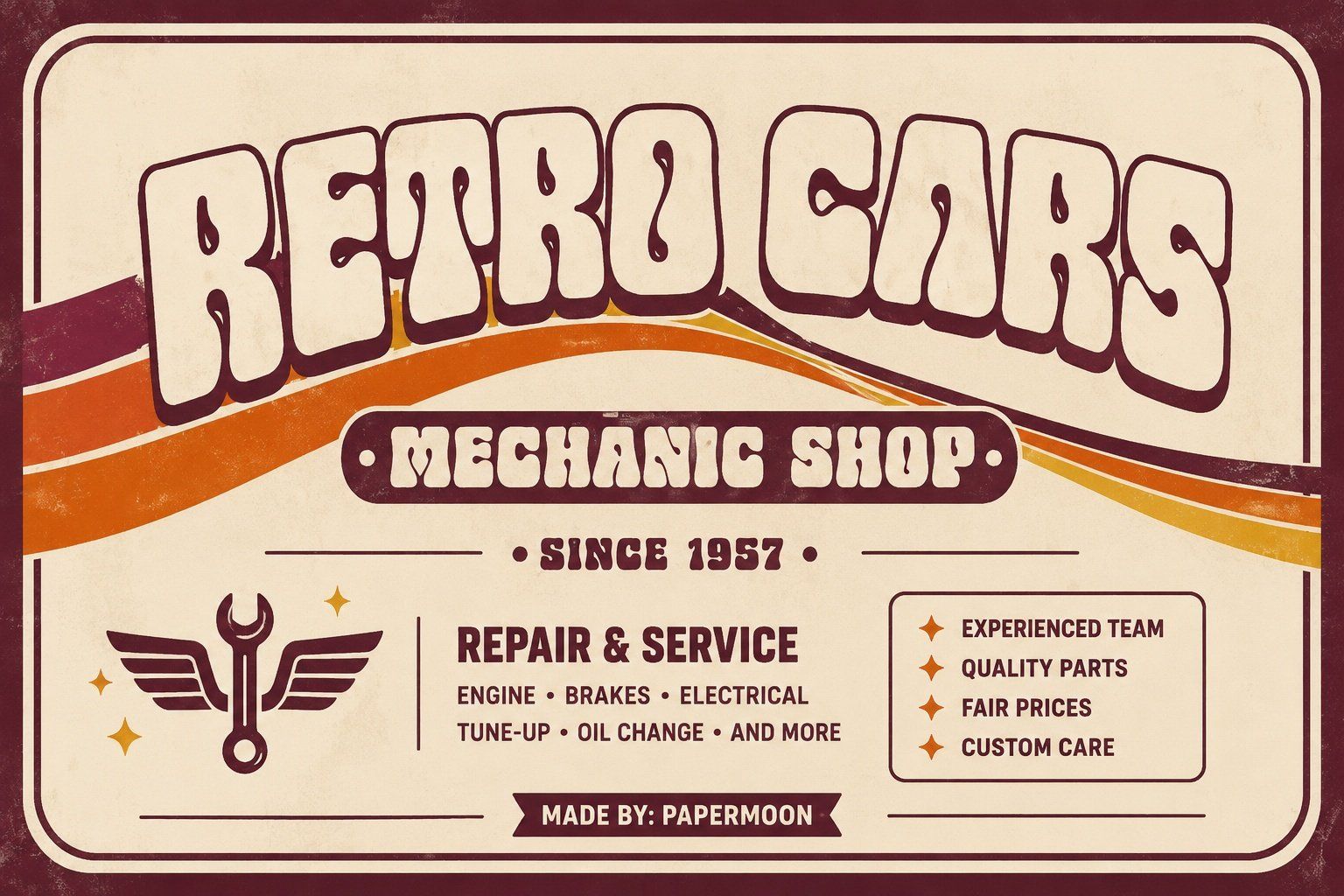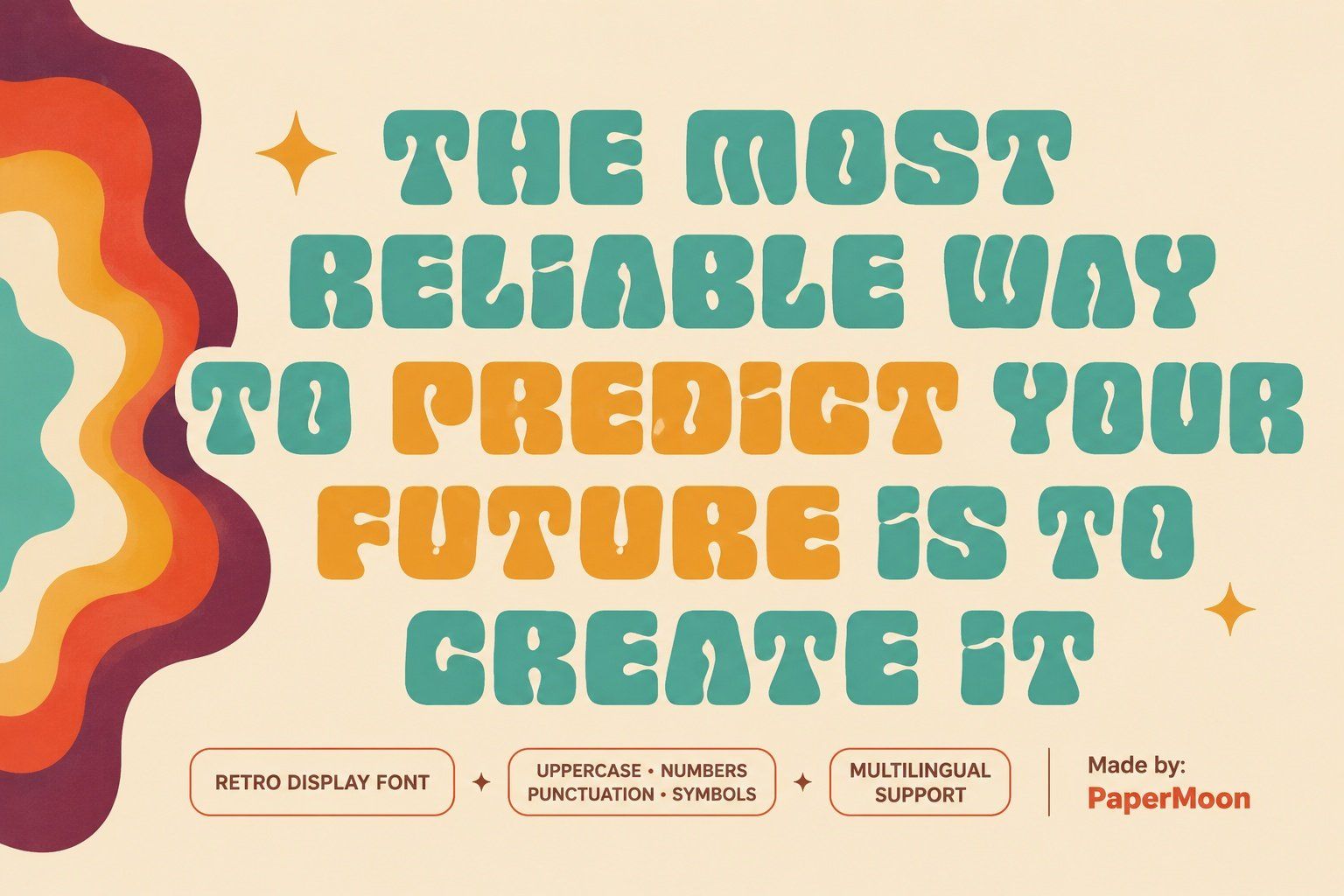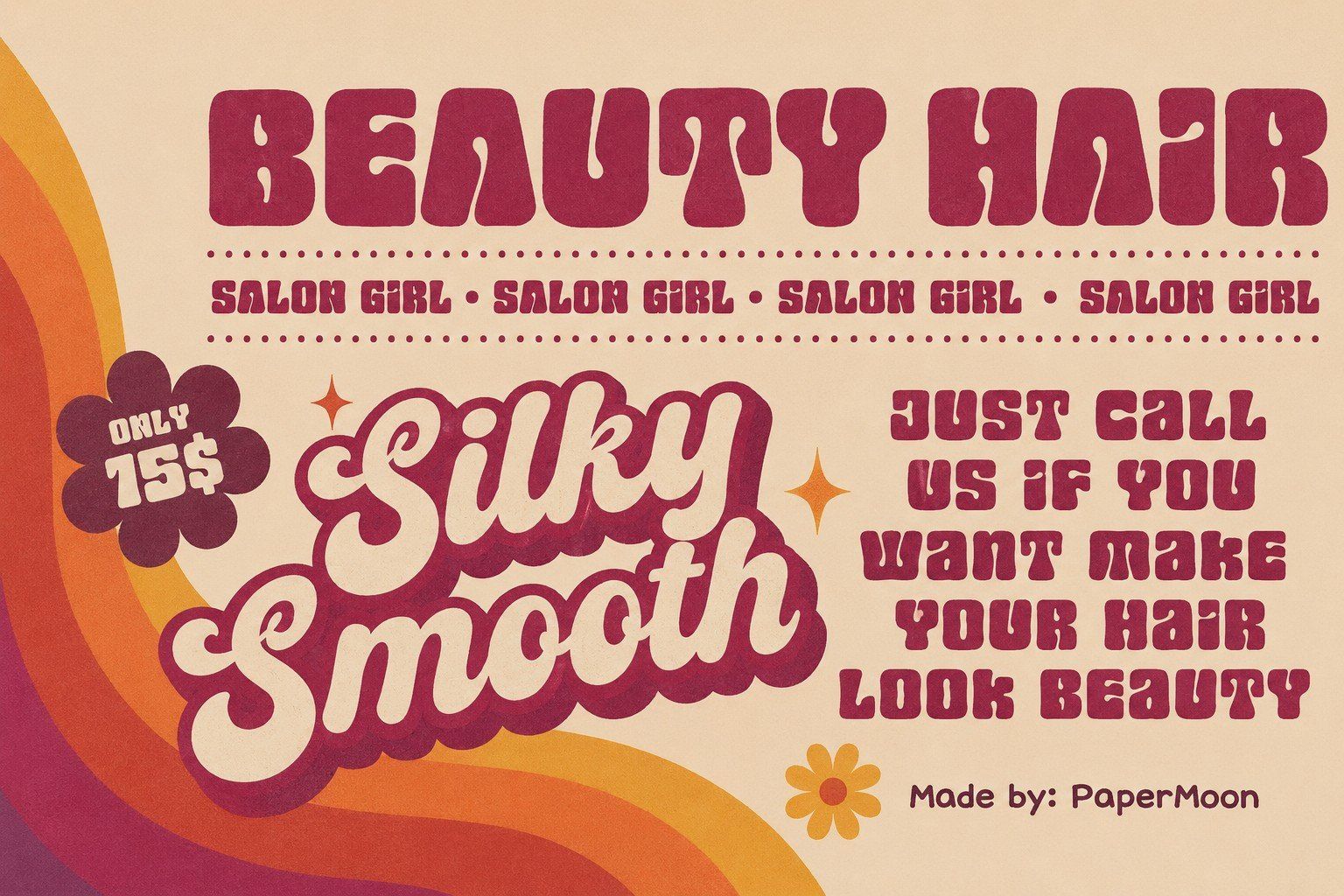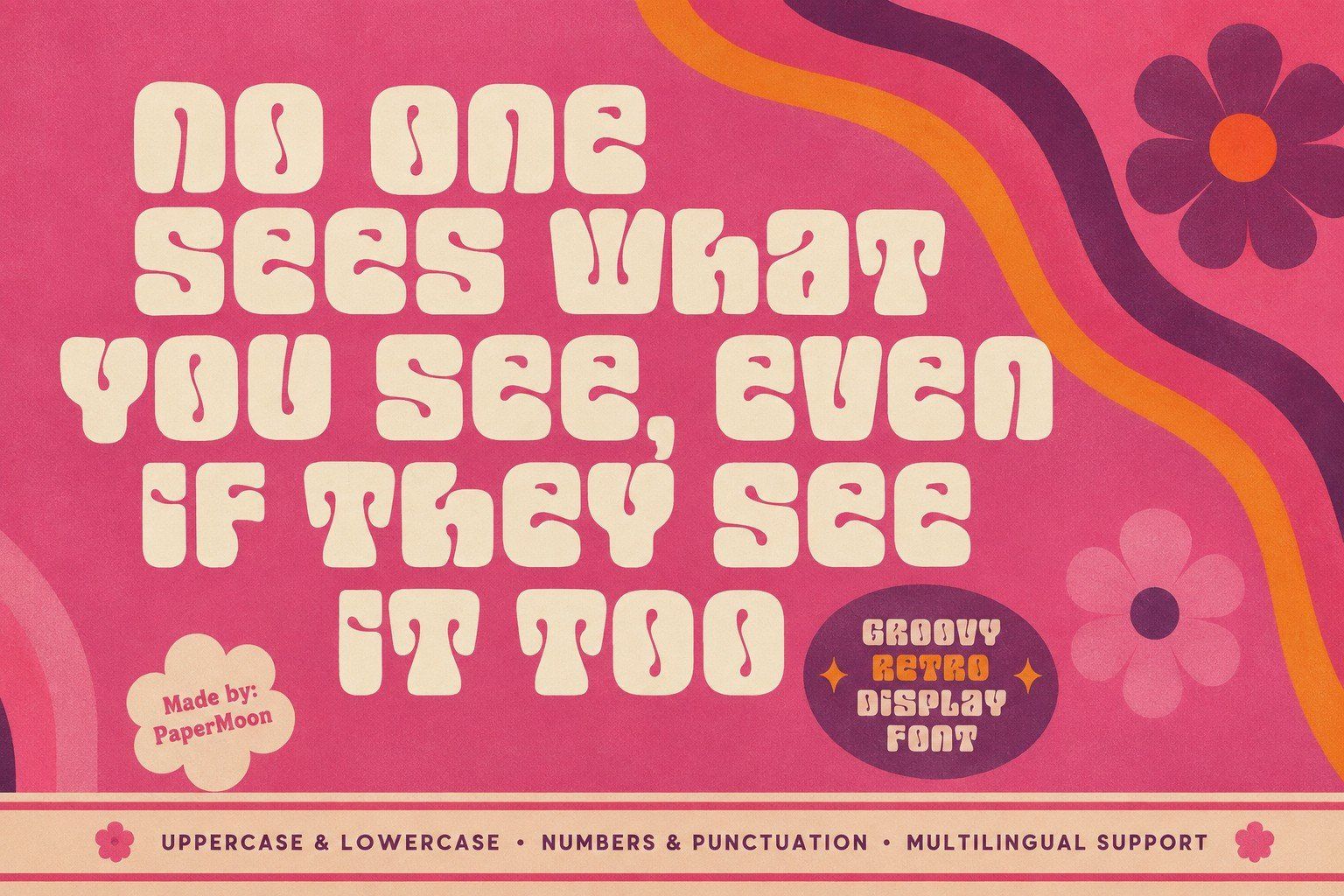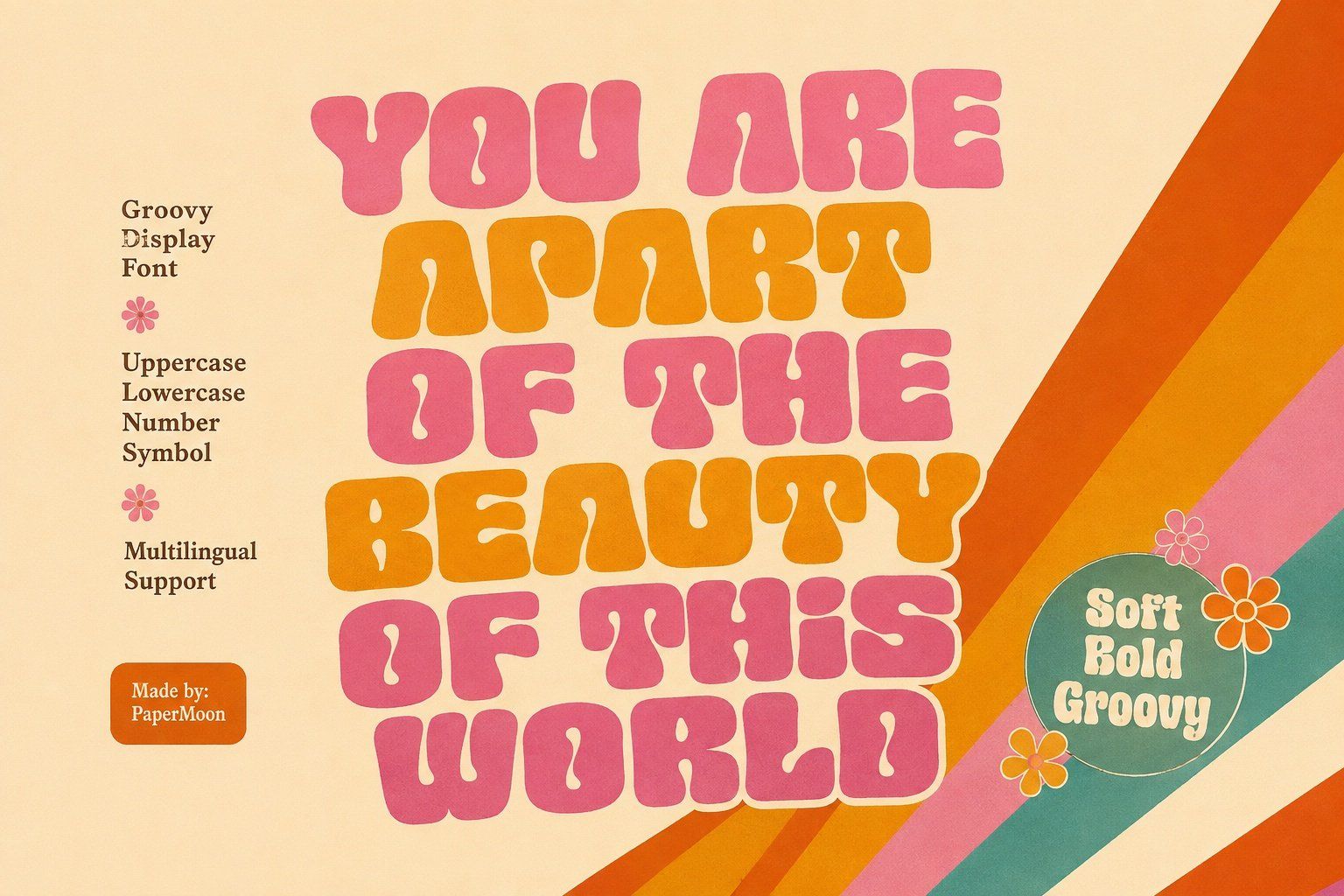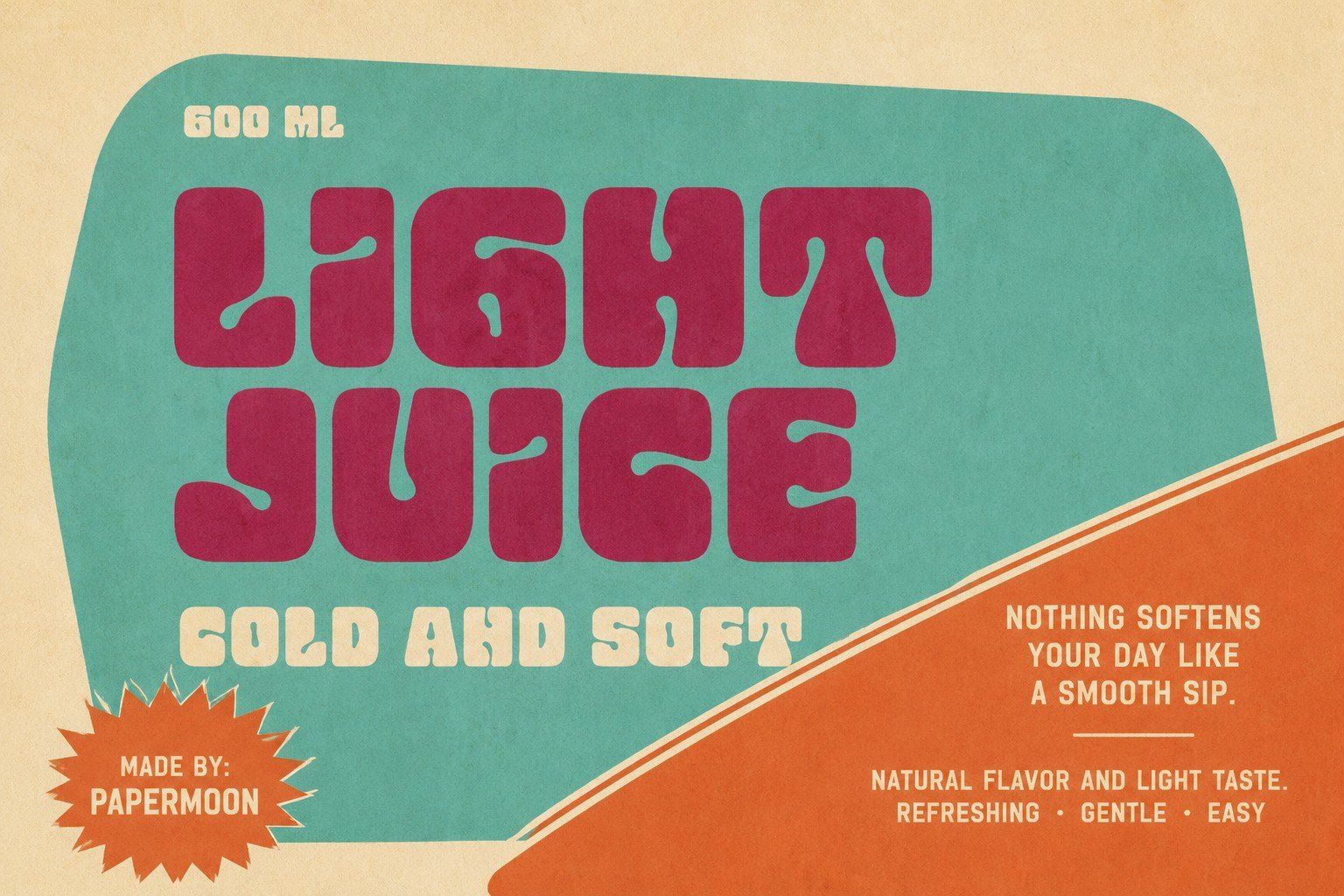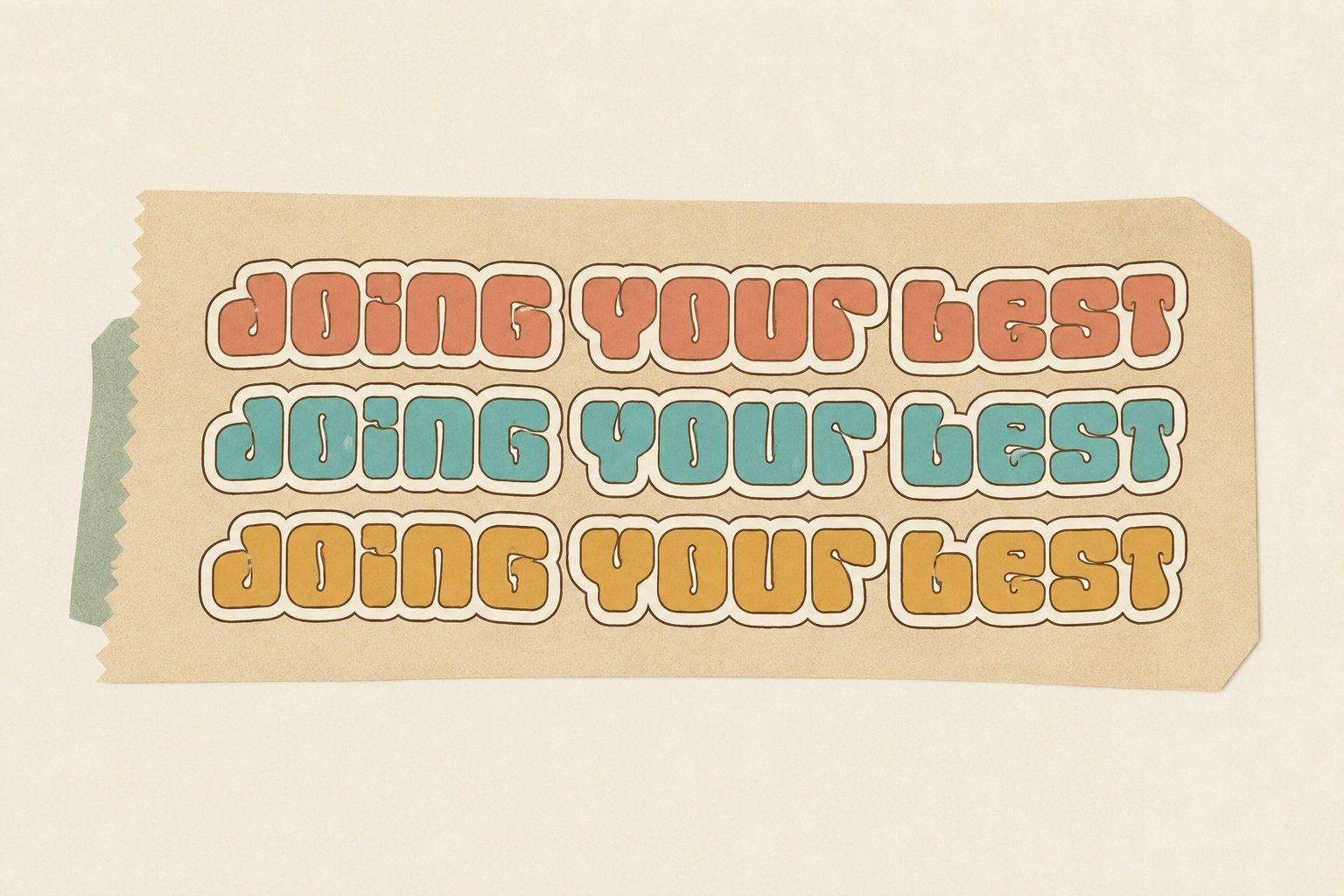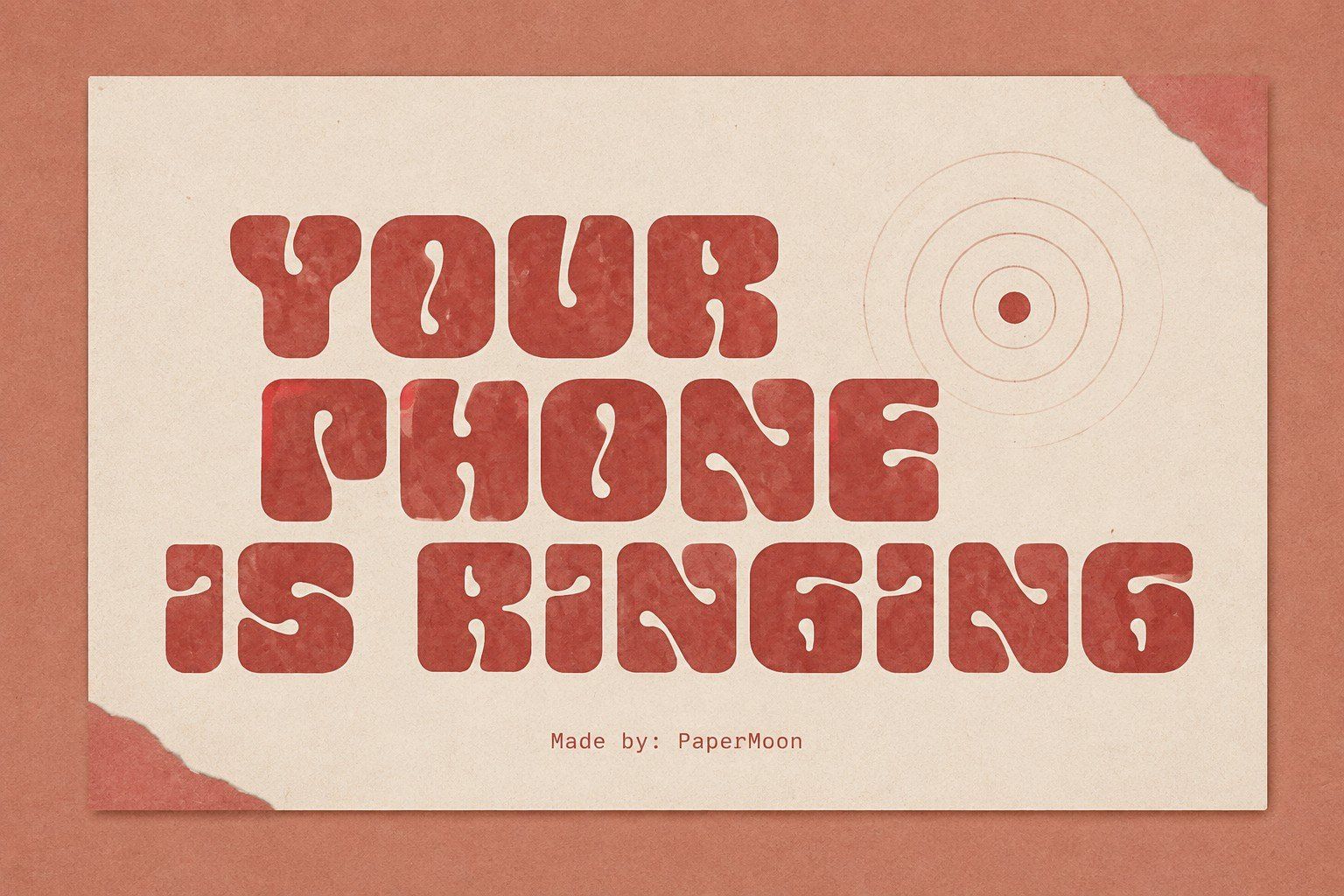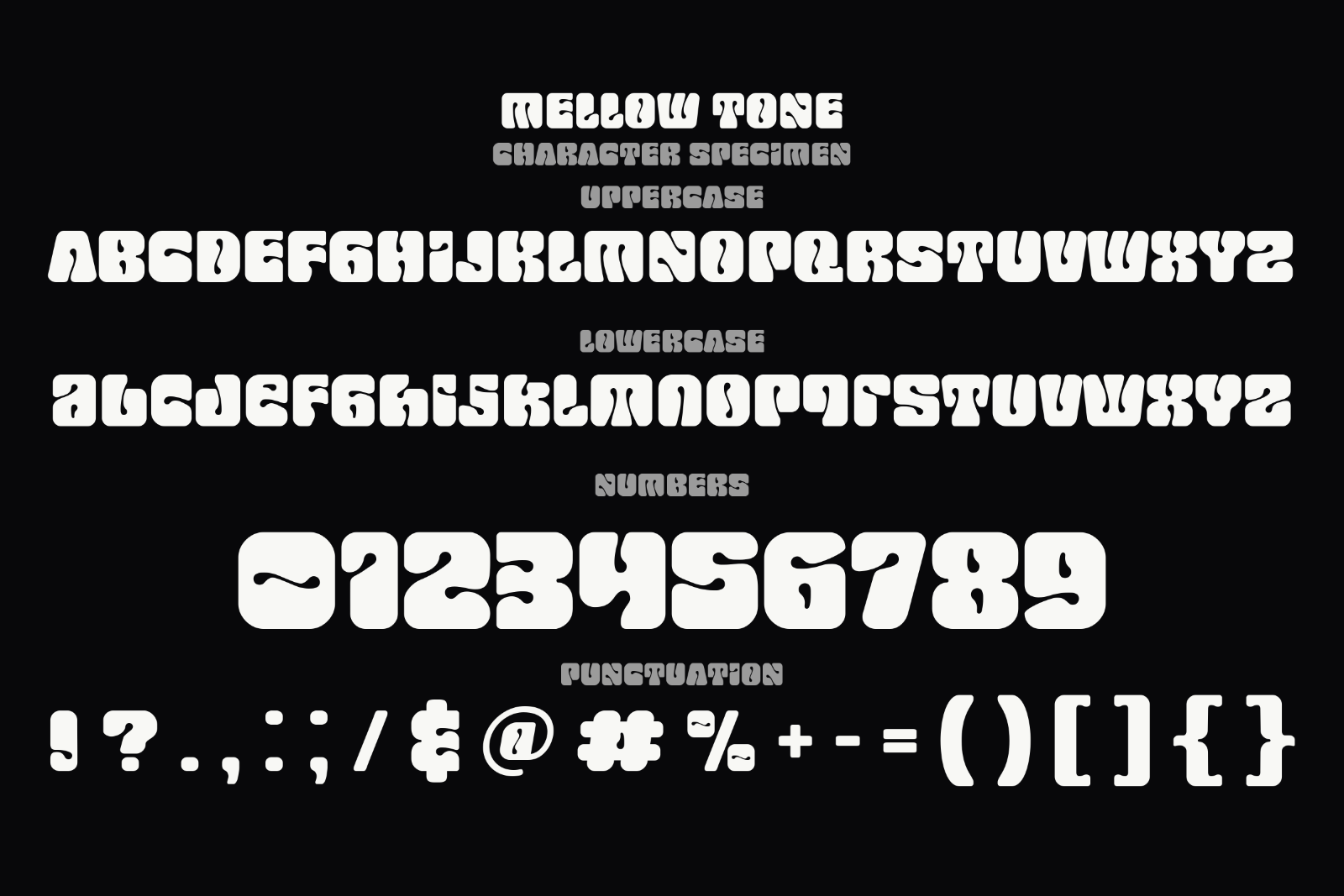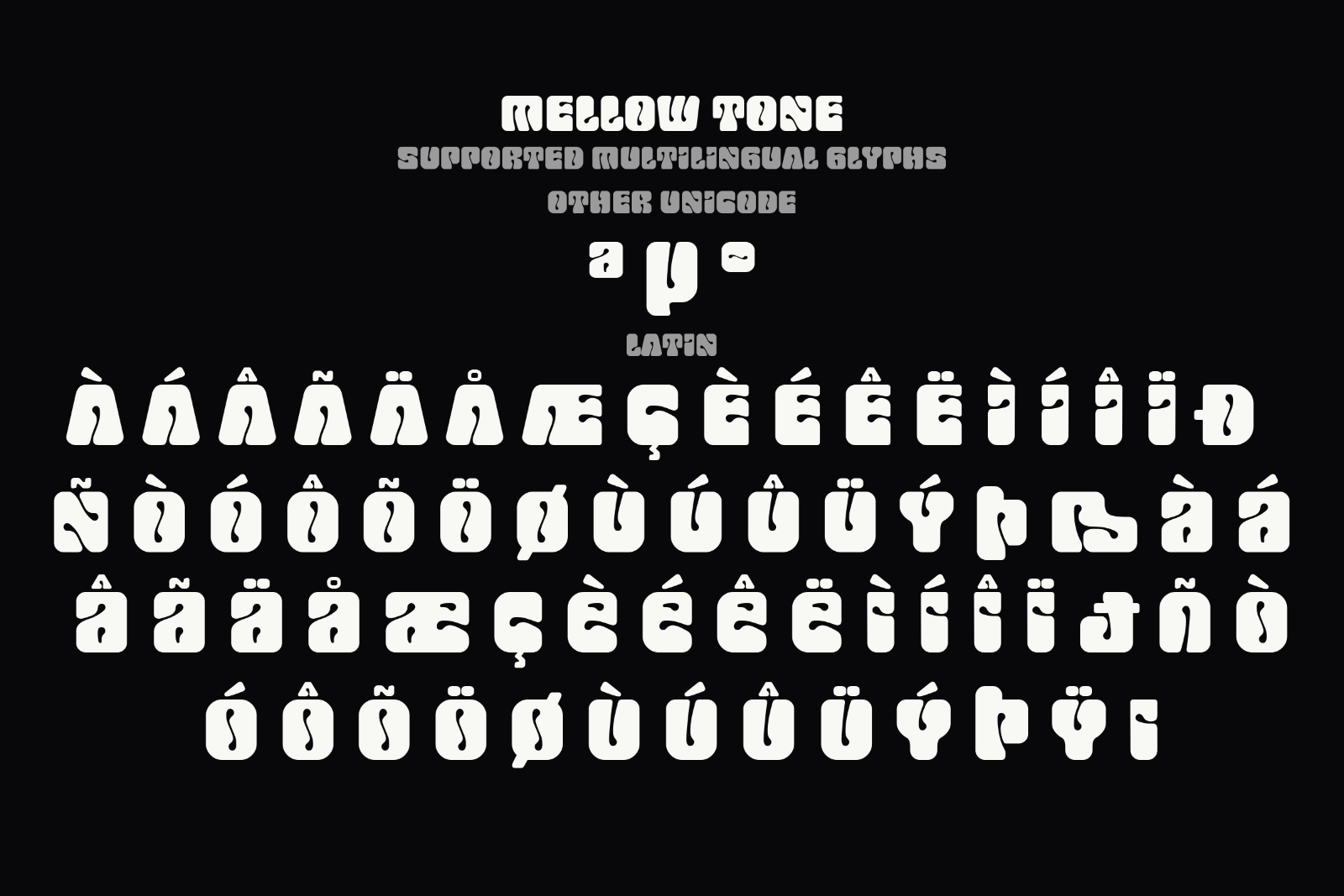
Mellow Tone is a rounded retro psychedelic display font that gives logos, stickers, packaging, and headlines a playful, memorable look.
Bring a soft, energetic retro mood to logotypes, stickers, packaging design, Cricut projects, headlines, brand identity, posters, magazines, books, YouTube, Instagram, websites, and other creative projects. The rounded touch helps short words and headline-sized lettering feel friendly, expressive, and easy to remember.
• Complete uppercase and lowercase character sets
• Numbers and punctuation
Mellow Tone is suited to branding, editorial layouts, poster lettering, social graphics, product packaging, and maker projects. Use the format that fits your design workflow and add a colorful psychedelic character to your next creative project.